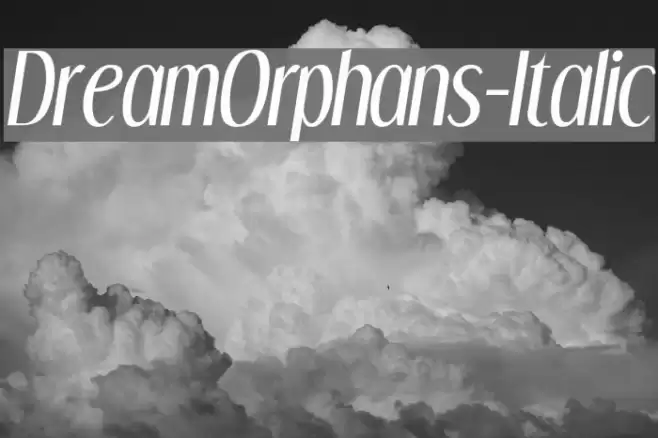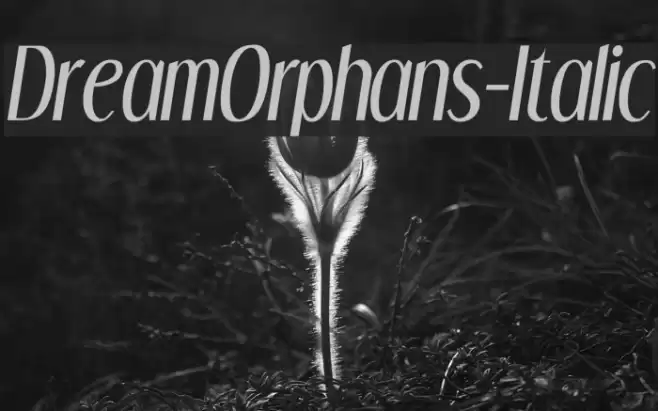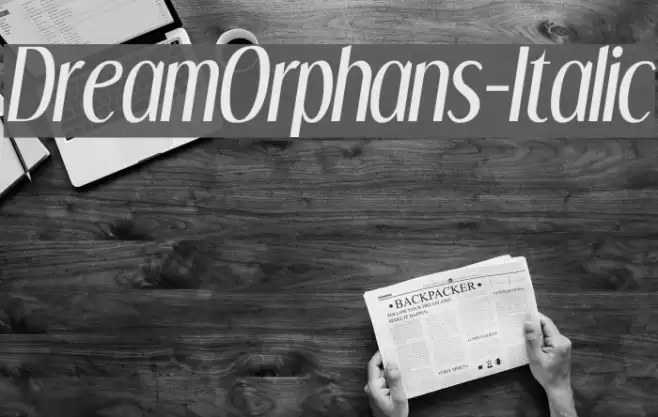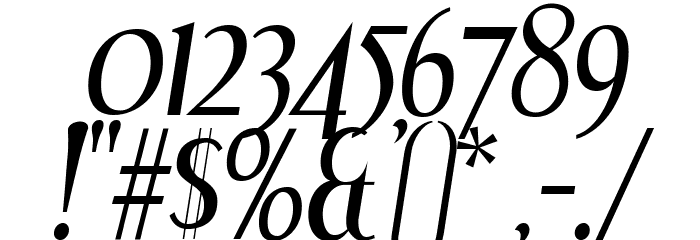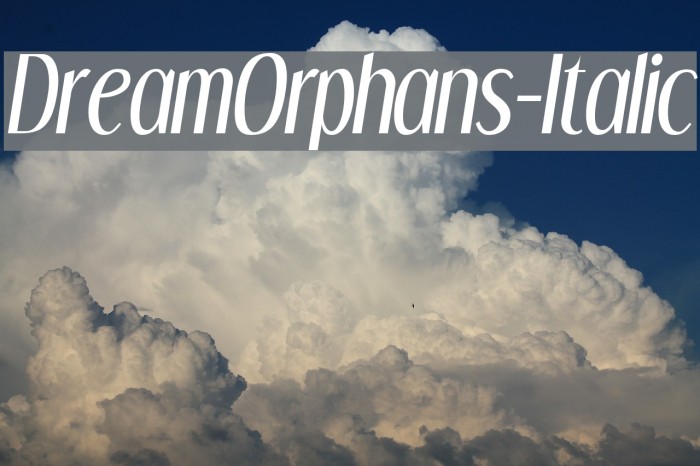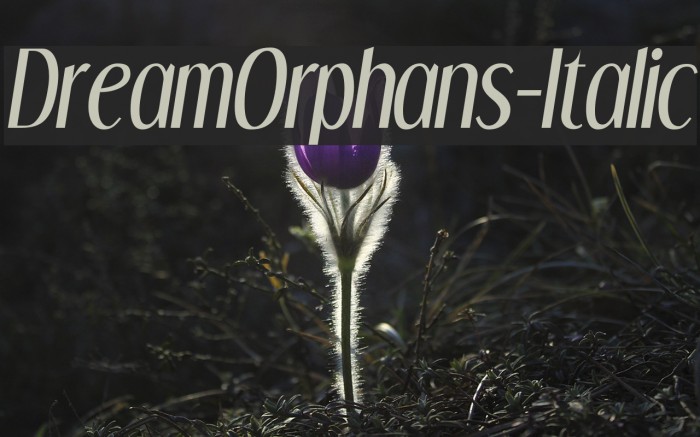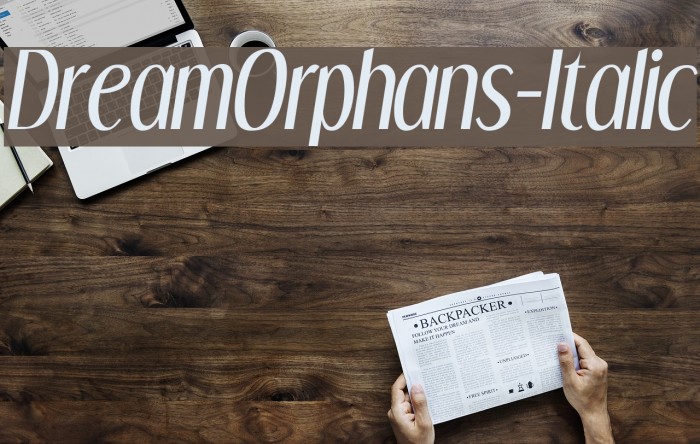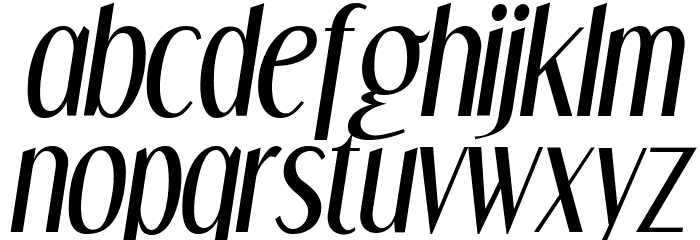
DreamOrphans-Italic Font
DreamOrphans-Italic Description
This font exhibits a sleek and modern design with a distinct italic slant, giving it a dynamic and elegant appearance. The characters are elongated with a slight curvature, providing a sense of movement and fluidity. The uppercase letters are tall and commanding, while the lowercase letters maintain a consistent style with a slightly more compact form. The numerals are designed to match the overall aesthetic, featuring similar curves and angles. Special characters are thoughtfully crafted to blend seamlessly with the rest of the typeface, ensuring versatility across various applications. The font's clean lines and contemporary style make it suitable for a wide range of design projects.
A modern, italic font with sleek, elongated characters and a dynamic style from Uncategorized fonts.
- Proposed Projects: Ideal for branding, editorial design, advertising, and digital media projects.
- Use Case: Headlines, Logos, Editorial design